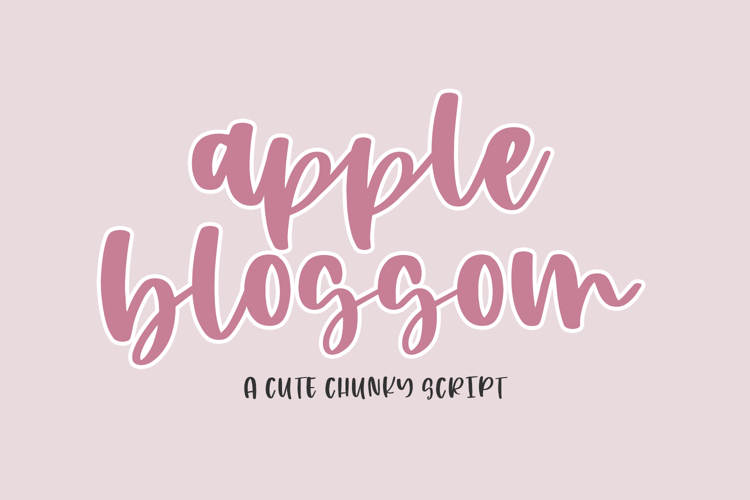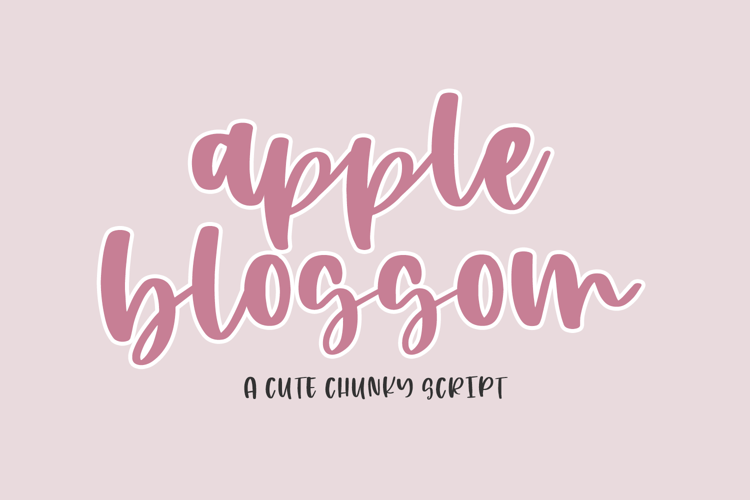
Introducing Apple Blossom Script, a chunky, bubbly script font.
Apple Blossom Script is best for:
- logos + branding for feminine or kid-centric brands
- header elements that need a cute handwritten touch
- crafting with Cricut or Silhouette machines, since it has a super smooth edge for cutting vinyl!
Apple Blossom Script includes:
- 2 ligatures - ff, tt